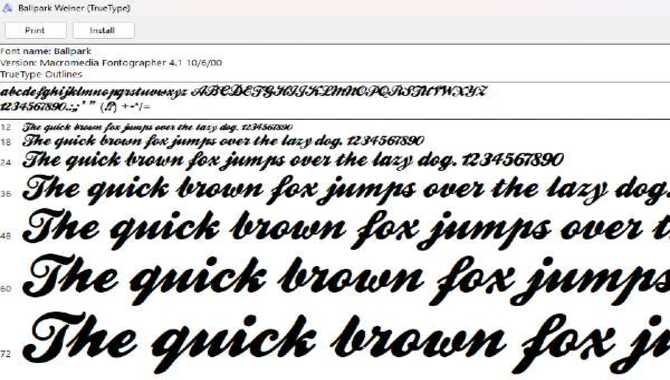
The Coors font is a great way to add a touch of class to your documents. Here are some tips on how to use it:
- Use the Coors font for headlines and titles. It looks great when used for large text.
- For body text, use a sans-serif font such as Arial or Helvetica. Coors is a bit too fancy for body text.
- Use Coors for short phrases and quotes. It looks especially good when used in conjunction with other decorative fonts.
- Use a different color for the Coors font than the rest of your document. This will help it stand out and be more noticeable.
- Be careful not to overuse the Coors font. Too much of a good thing can be a bad thing. Use it sparingly for the best results.
How Do I Use The Coors Font?
Next, add some text to the canvas. For the heading, we’ll use the Coors font in all caps. Set the font size to 48 pt and the tracking to -10. For the body copy, we’ll use the Coors font in regular weight. Set the font size to 12 pt and the leading to 18 pt.
Now let’s add some imagery to the label. In this example, we’ll use a photo of a beer glass. To finish things off, we’ll add a barcode to the label. For the barcode, we’ll use the Coors font in regular weight. Set the font size to 12 pt and the leading to 18 pt. And that’s it! You now have a completed beer label designed with the Coors font.
How Can I Change The Size Of The Coors Font?
How Can I Make The Coors Font Bold?
How Can I Make The Coors Font Italic?
There is no italic version of the Coors font.
How Can I Underline Text Using The Coors Font?
To underline text using the Coors font, highlight the text and click the “Underline” button in the Font group on the Home tab.
One important aspect of effective web design is the use of fonts. Fonts can help to add personality to your website and make the overall design more aesthetically pleasing. However, if you’re not careful, fonts can also make your website look cluttered and unprofessional.
One way to avoid this is to use the underline text formatting option. This will help to make your text more readable and will also help to add visual interest to your website.
5.What Are Some Other Ways I Can Use The Coors Font?
There is no one definitive answer to this question. Each situation will call for a different method of using the Coors font. However, some basic tips on how to use this font include downloading the font from the Internet, installing it on your computer, and then using it in a word processing or graphic design program.